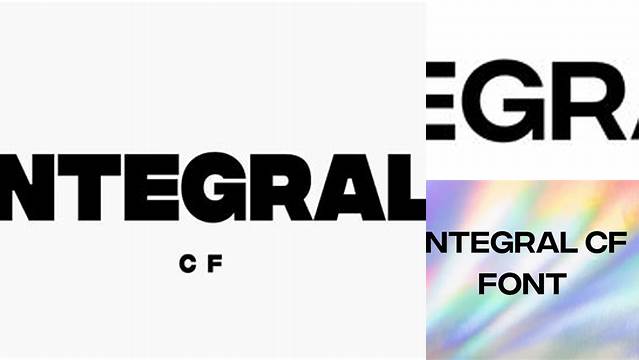
Hey everyone, let's dive into the awesome world of the Integral CF font family! You know, sometimes finding the perfect font can feel like searching for a needle in a haystack, right? But when you stumble upon something as versatile and stylish as Integral CF, it's a game-changer. We're going to explore what makes this font family so special, how you can snag it for free, and where you can use it to make your designs pop. So, buckle up, guys, because we're about to unlock the potential of this fantastic typeface!
What is the Integral CF Font Family?
The Integral CF font family is a modern sans-serif typeface that's gained a lot of traction in the design community. Designed with clarity and versatility in mind, it offers a clean, geometric aesthetic that's both contemporary and timeless. What sets it apart is its extensive range of weights and styles, meaning you can achieve a consistent look and feel across all your design projects, from headlines to body text, logos to web interfaces. The designers really poured a lot of thought into making sure it works well in various sizes and applications, which is super important for us designers who are always juggling different needs. Whether you're going for a minimalist vibe or something more bold and impactful, Integral CF has got your back. It’s the kind of font that doesn't scream for attention but rather confidently supports your message, making it incredibly adaptable. Seriously, the attention to detail in each character is noticeable, contributing to its overall professional and polished appearance.
Exploring the Versatility of Integral CF
One of the most significant strengths of the Integral CF font family is its incredible versatility. It's not just a one-trick pony; this font family is equipped with a wide spectrum of weights, typically ranging from ultra-light to black, with many stops in between. This means you can create a strong typographic hierarchy in your designs. Imagine using a thin weight for subtle captions, a regular weight for body copy, and a bold or black weight for impactful headlines. This range allows for subtle yet effective visual distinctions that guide the reader's eye. Beyond the weights, you'll often find variations in styles, like italics, which add another layer of expressiveness. This makes Integral CF suitable for a massive array of applications. Think branding, website design, editorial layouts, mobile apps, posters, and even packaging. Its clean lines and balanced proportions ensure legibility even at small sizes, while its bolder weights carry significant presence for display purposes. It’s this adaptability that makes it a go-to choice for many designers looking for a reliable and aesthetically pleasing sans-serif that can handle diverse project requirements without compromising on style or readability. The geometric underpinnings give it a modern feel, but the subtle humanist touches prevent it from feeling sterile, striking a perfect balance.
Why is Integral CF So Popular?
So, what’s the big deal about Integral CF? Why are so many designers raving about it? Well, guys, it boils down to a few key things. Firstly, it's incredibly well-designed. The letterforms are clean, balanced, and have a professional finish that elevates any design. It doesn't have any quirky bits that might distract or cause legibility issues. Secondly, its versatility is a massive plus. As we touched upon, the large family with multiple weights means you can use it for almost anything, ensuring consistency across your brand or project. Finally, and perhaps most importantly for many of us, is its accessibility. The availability of Integral CF font family free versions means that designers on a budget or hobbyists can access a high-quality typeface without breaking the bank. This democratization of good design is something to celebrate! Designers love fonts that are not only aesthetically pleasing but also highly functional and readily available. Integral CF hits all these marks, making it a staple in many digital toolkits. Its geometric construction ensures a modern appeal, but it’s softened enough to feel approachable and legible, which is a tricky balance to strike but one Integral CF achieves beautifully. The clarity of its characters makes it a safe bet for user interfaces where readability is paramount, yet its stronger weights have enough personality to command attention in display settings.
The Design Philosophy Behind Integral CF
The design philosophy behind the Integral CF font family emphasizes clarity, functionality, and modern aesthetics. It’s built on geometric principles, giving it a strong, structured feel, but it avoids the coldness often associated with purely geometric fonts. There's a subtle humanist influence in the proportions and curves that makes it feel more approachable and readable, especially in longer texts. The designers aimed to create a typeface that could adapt to a wide range of contexts, from crisp digital interfaces to impactful print designs. This adaptability is achieved through meticulous attention to detail in the spacing, kerning, and the precise construction of each glyph. The result is a font that is not only beautiful to look at but also exceptionally comfortable to read. Its extensive range of weights is a testament to this philosophy, allowing designers to fine-tune their typographic expressions with precision. Whether you need a whisper-light font for elegant accents or a robust, commanding font for headlines, Integral CF provides the tools. The creators clearly valued creating a workhorse typeface – one that’s reliable, versatile, and contributes positively to the overall user experience without demanding undue attention. This thoughtful approach results in a font that feels both contemporary and enduring, a rare combination in the fast-paced world of design. It's this blend of technical excellence and user-centric design that makes Integral CF a standout.
Using Integral CF in Your Designs
Now for the fun part – actually using the Integral CF font family free in your design projects! The beauty of Integral CF lies in its clean, modern aesthetic. It works wonderfully for a wide range of applications. For web design, its excellent legibility makes it a fantastic choice for body text, navigation menus, and even headlines. You can pair different weights to create visual interest – maybe a light weight for descriptive text and a bold weight for call-to-action buttons. In print design, Integral CF shines too. Use its heavier weights for impactful posters or book covers, and its lighter weights for elegant invitations or brochures. Branding is another area where it excels. Its versatility allows a single font family to cover multiple aspects of a brand's visual identity, from logos to marketing materials. Don't be afraid to experiment! Try using it in all caps for a strong, architectural feel, or mix and match weights for a dynamic look. The key is to let the font's inherent qualities guide your design choices. Its geometric structure lends itself well to minimalist and modern aesthetics, but it can also be dressed up or down depending on the context. Think about the message you want to convey – Integral CF is often associated with reliability, clarity, and a contemporary edge, so it's perfect for tech companies, creative agencies, or any brand aiming for a polished, professional image.
The Future of Free, High-Quality Fonts